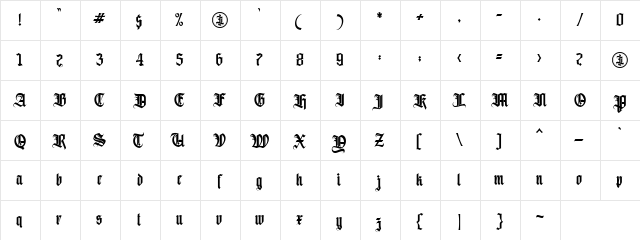
Avestrava Regular Personal Use Only Regular
| Foundry | @ilhamtaro |
| Designer | Ilham Wahyu |
Design Context for Avestrava Regular Personal Use Only Typeface
Avestrava Regular Personal Use Only is a composed and adaptable typeface that performs quietly and consistently across a wide range of design contexts.